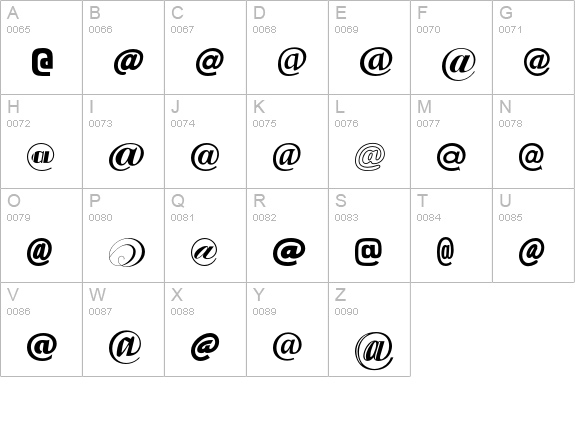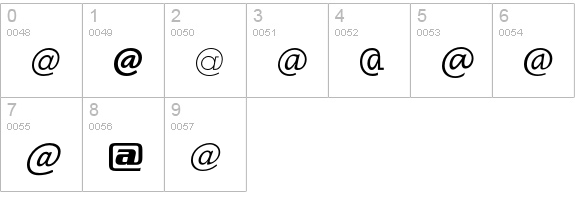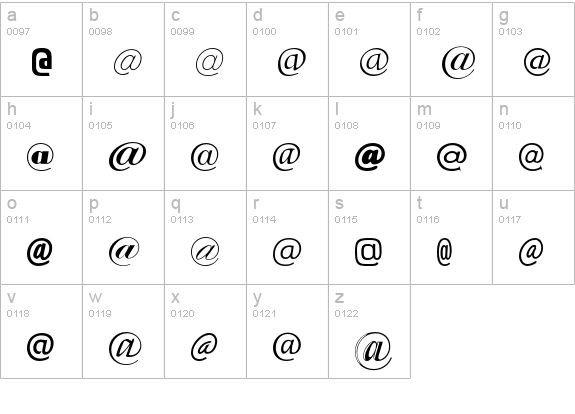
ZappingNetEF Font Details
Introducing ZappingNetEF font, a sleek and modern typeface that combines elegance with a touch of edginess. This versatile font is perfect for a wide range of design projects, from branding to signage to web design. With its clean lines and unique character shapes, ZappingNetEF adds a contemporary flair to any text. What sets ZappingNetEF apart is not just its striking appearance, but also the fact that it is available for free download at FontsMarket.com. That's right - you can enhance your designs with this stylish font without having to spend a dime. Whether you're a seasoned designer looking to freshen up your portfolio or a novice just starting out, ZappingNetEF is a valuable addition to your font library. Don't miss out on the opportunity to elevate your designs with ZappingNetEF. Download this exceptional font for free today and let your creativity soar.